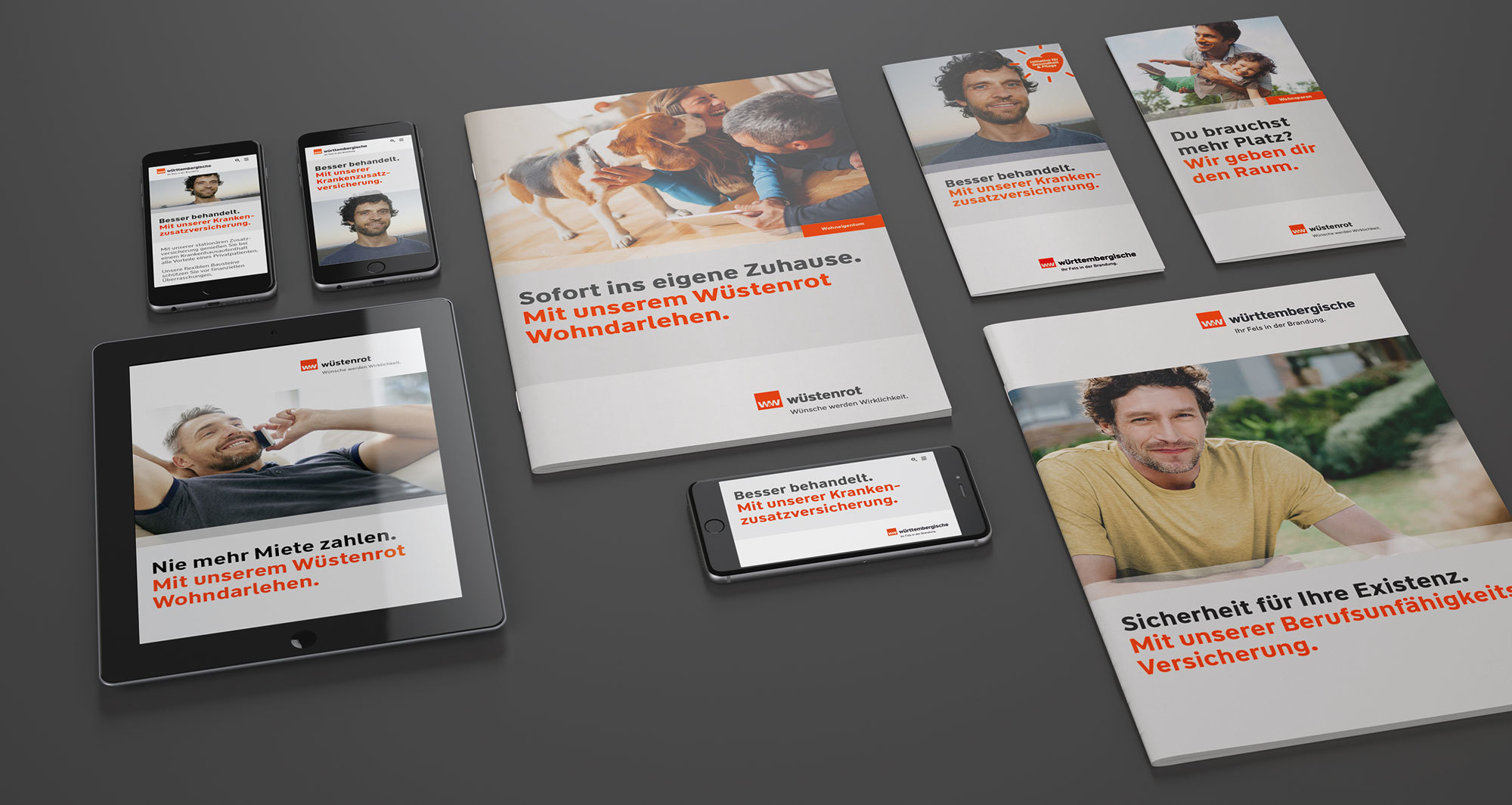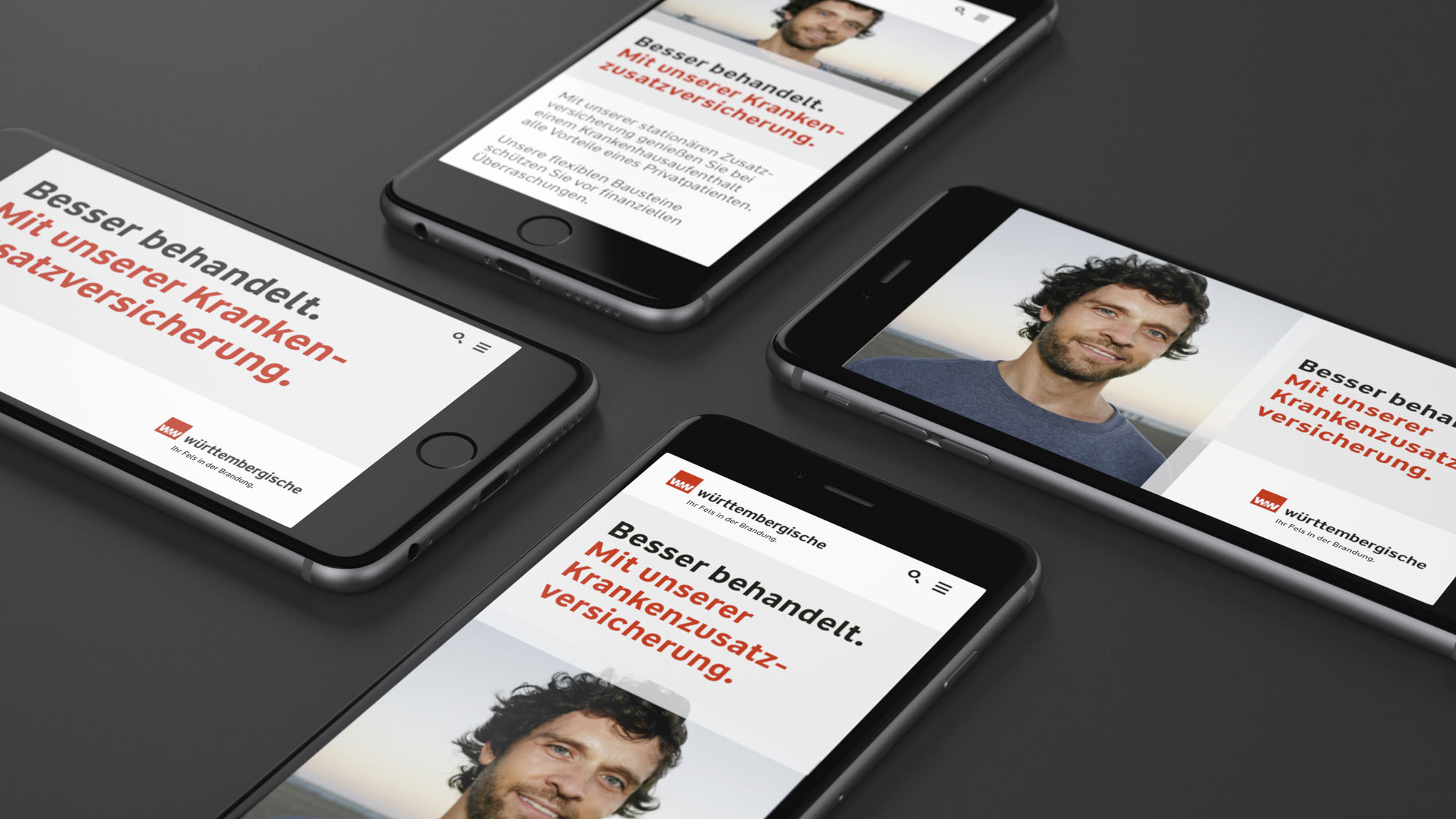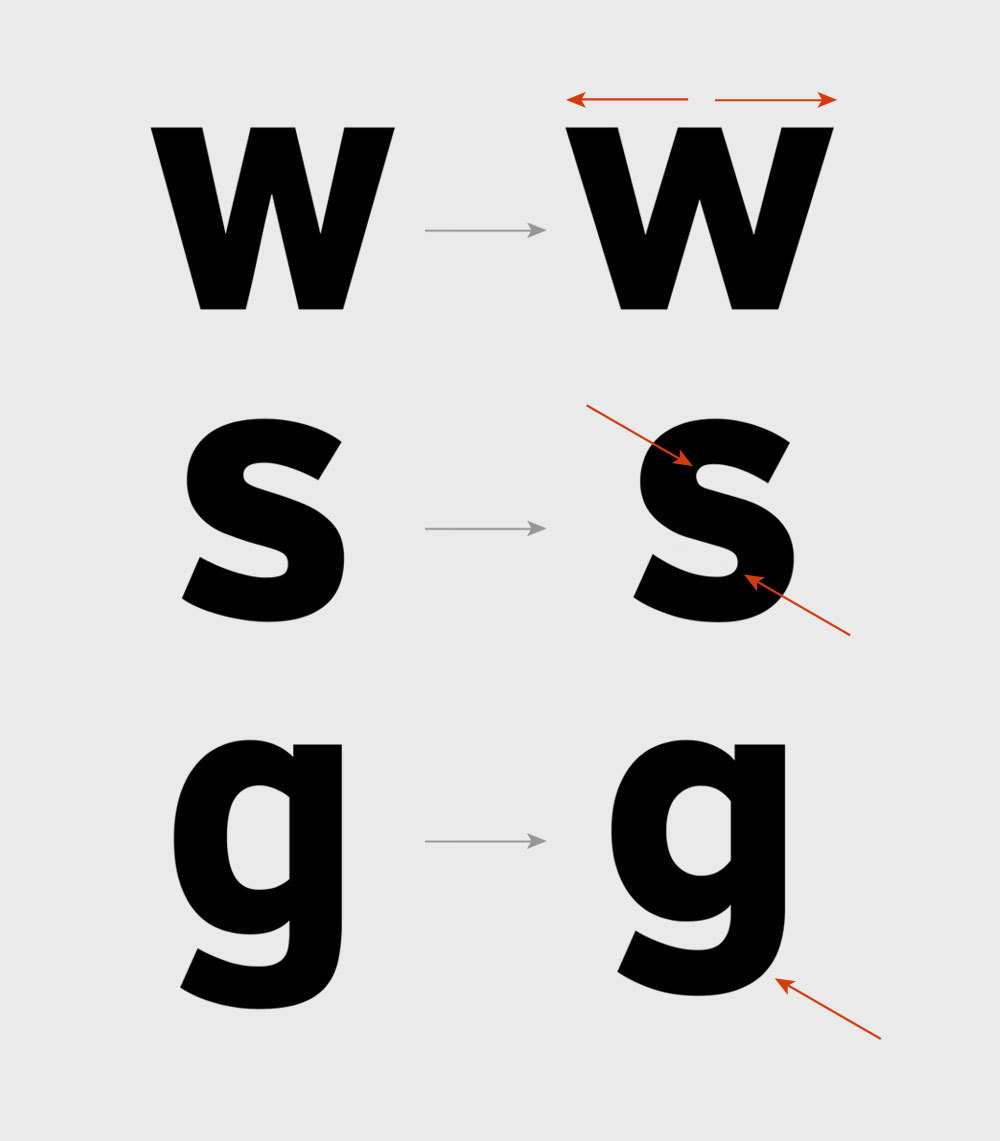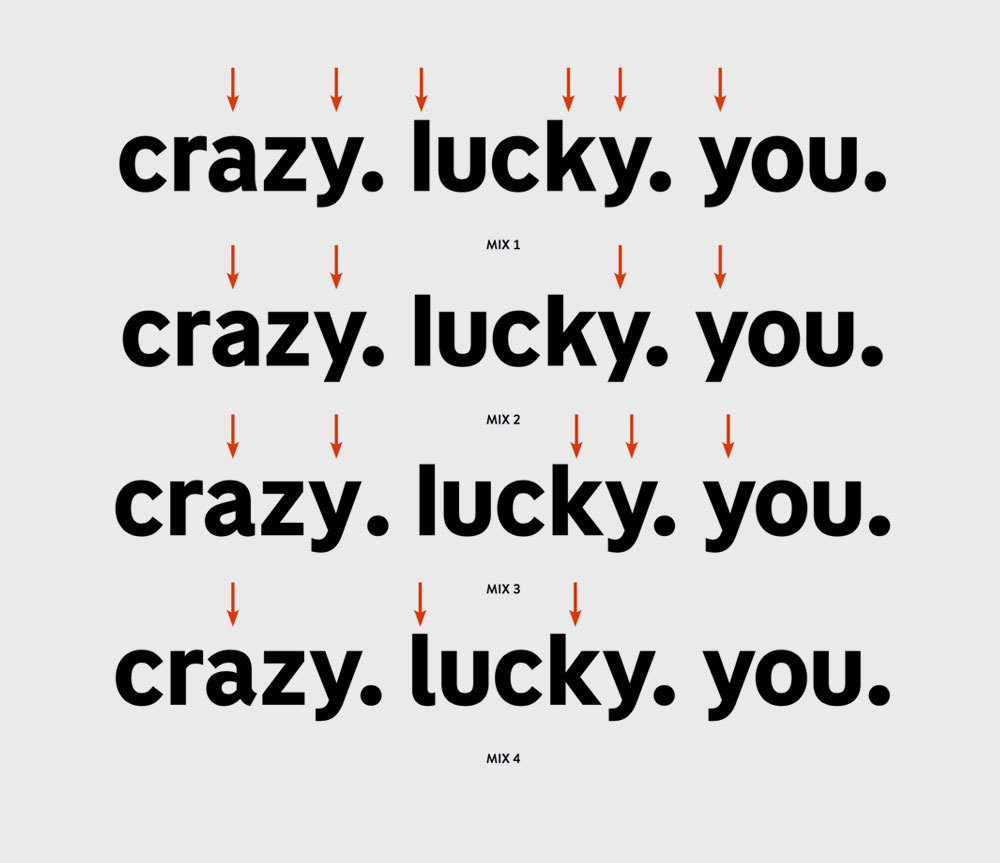
Wüstenrot
What should we take care of when we come from a Logo to a complete typeface?
When we received the request to create a typeface for the insurance company Wüstenrot & Württembergische out of the existing letters from their logo, the first thing we had to do is to research if someone else (e.g. the creator) has specific rights on the logo – in this case we would not have been allowed to do this job. Secondly we had to see if this wordmark maybe is set in a existing font and the client may not know about. After some detailed research we found out that both points do not apply, so we where free to accept this job.
The status quo was that they had these letters of the logo somebody drew but they used a different sans serif typeface which didn‘t really match to the Logo-Sans. A totally logic decision is to unify this and use just one typeface for everyhing. The good thing: We could try to implement the companies core values into the rest of the letters.
The typeface and the logo of a company should work together perfectly.
The goal was to harmonize the visual language. There was a logo but no fitting typeface, so we created a full typeface on the base of the existing letters.
Wüstenrot & Württembergische
Developing a typeface
In the beginning we had these 14 letters so 471 where missing for this weight. In additon to the Bold weight, we should also draw a regular weight which should be optimized for text setting. But we started with the Bold which is easier to define the character of a typeface. So we also took a closer look at the company Wüstenrot & Württembergische to feel in which design direction the missing characters should be developed.
We first analyzed every given form and detail of the logo to get a feeling how the rest could look like.
Wüstenrot & Württembergische
What we had: The existing letters
We decided that we would like to do some small but for a good typeface necessary tweaks to the existing letters. So that the typeface doesn‘t really look different but works as a system inside a font. Beside the form of a single letter, it is also important how combinations of different letters work together and how the rhythm of a text is.
Wüstenrot & Württembergische
Refined forms of the original Logo
Before designing the missing letters we tweaked the existing ones to have a good basis for the whole typeface. The „w“ was very narrow which would result in some black spots inside a text, we optimized the curves of the s and several other letters and we also shortened the g to work better in texts and define a descender length.
Researching the right choice of letterforms
Wüstenrot & Württembergische
Several different ways to the vision
Together with the designers of the agency we explored several varaints of character givinig letters finding the typeface which fits perfectly to the company. It is really impressive how the whole feeling of the typeface changes if you just change one or two letters. So this is a very important phase of the process which is ideally done together with the agency brand experts and in the best case also with the client. After some back and forth we found the forms and characteristics.
Characteristics of the typeface
1 — Distinctive Details
The G has a very decided spur to act as one of the strong character giving letters. This results in a stable and self confident appearance: it would be not that easy to push this over
Wüstenrot & Württembergische
Print and appearance
The fonts are used in logos, on flyers and every other visual areas. They need to work as the carrier of information as well as the visual recognizability for the brand in every situation.
One of the most important aspect was that the fonts should also have the quality of a workhorse that can be used for brochures, mailings, forms and lists and tables representing payment- and order numbers.
Wüstenrot & Württembergische
Digital Use
A manual screen optimization (hinting) for the fonts makes sure that a clean and sharp rendering is guaranteed in the digital world.